Funky fonts break all the traditional typography rules, and that’s exactly what makes them so powerful. These unconventional typefaces—with their bold shapes, experimental forms, and unapologetic personality—can instantly transform ordinary designs into something memorable.
What sets funky fonts apart? They refuse to play it safe. Whether they feature psychedelic curves, geometric oddities, or completely reimagined letterforms, these typefaces are built to grab attention and make a statement. They’re perfect for brands that want to stand out, projects that need personality, or any design where boring simply won’t cut it.
This guide covers how to choose and use funky fonts effectively in your work. You’ll learn when these bold typefaces shine, how to pair them without creating chaos, and which ones are worth adding to your design toolkit.
The Funkiest Fonts to Try in 2026
Here’s where things get exciting. I’ve compiled a list of the most absolutely groovy funky fonts that are making waves in 2026. Each one brings its own unique flavor of funkiness to the table:
TF Funky Fusion
TF Funky Fusion is a decorative font that combines funky and vintage elements. It’s perfect for creating eye-catching designs with a retro twist, ideal for posters, album covers, or branding projects that need a bold, nostalgic feel.
Mystic Dream – Retro Funky Font
Mystic Dream is a retro funky font that evokes a sense of nostalgia and playfulness. Its unique letterforms are perfect for creating designs with a 70s vibe, suitable for music-related projects, event posters, or any design that needs a touch of vintage funk.
Funky Star – Graffiti Font
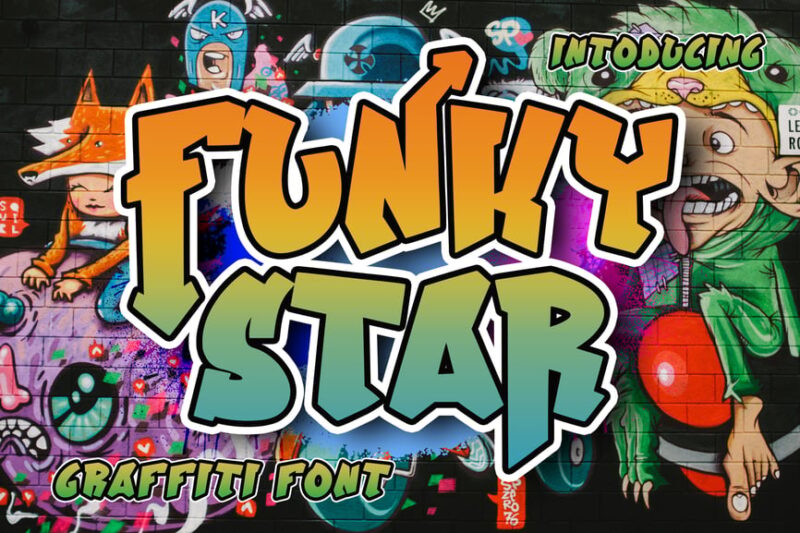
Funky Star is a graffiti-inspired font that brings urban art to your designs. Its bold, expressive letterforms are ideal for creating street-style graphics, logo designs, or any project that requires a raw, artistic edge.
Funky Hype
Funky Hype is a decorative font that combines elements of calendar and comic styles. Its quirky letterforms are ideal for creating eye-catching designs for youth-oriented projects, event promotions, or any design that needs a bold, energetic feel.
Bubble Eartune – Urban Street Funky Rounded Font
Bubble Eartune is a funky rounded sans-serif font with an urban streetwear vibe. Its bubble-like letterforms and fancy details make it perfect for creating designs with a modern, playful edge, ideal for branding, packaging, or digital media projects.
Mag Funky – Retro Psychedelic Display Typeface
Mag Funky is a retro psychedelic display typeface with a bold, 3D appearance. Its bubble-like forms and trippy aesthetic make it perfect for creating eye-catching designs for music events, festival posters, or any project that needs a strong, psychedelic vibe.
Funky Grim – Playful Pop Retro Horror Display Font
Funky Grim is a unique display font that combines playful pop elements with retro horror aesthetics. Its eclectic mix of serif and sans-serif styles makes it perfect for creating attention-grabbing designs for Halloween events, themed parties, or any project that needs a quirky, spooky touch.
Funky – Tall & Skinny Typeface
Funky is a tall and skinny typeface that combines sans-serif and decorative elements. Its handwritten-style letterforms create a unique, elongated look, perfect for creating elegant yet playful designs for fashion, beauty, or lifestyle brands.
Funky Brow – New Bubble Graffiti Font
Funky Brow is a new bubble graffiti font with a fresh, urban feel. Its rounded, inflated bubble-like letterforms are perfect for creating bold, street-style designs for youth-oriented brands, event posters, or any project that needs a modern, edgy look.
Funkies Surfer Modern Psychedelic Font
Funkies Surfer is a modern psychedelic font with a surf-inspired twist. Its groovy letterforms are perfect for creating designs with a retro-futuristic feel, ideal for music festivals, beach events, or any project that needs a trippy, coastal vibe.
Peculiar People – Psychedelic
Peculiar People is a psychedelic font that combines script, handwritten, and sans-serif elements. Its hand-lettered, trippy aesthetic makes it perfect for creating designs with a 60s-inspired feel, suitable for music posters, album covers, or any project that needs a dose of retro coolness.
Funk Jive – Vintage Font
Funk Jive is a vintage-inspired decorative font with a retro flair. Its groovy letterforms are perfect for creating designs that evoke the spirit of the 70s, ideal for music-related projects, retro branding, or any design that needs a nostalgic touch.
So go forth and get funky! Experiment with unconventional letterforms, embrace the weird and wonderful, and remember that in the world of typography, sometimes the funkiest choice is the most effective choice.
After all, life’s too short for boring fonts. Let your designs groove, let them dance, and let them be absolutely, unapologetically funky.